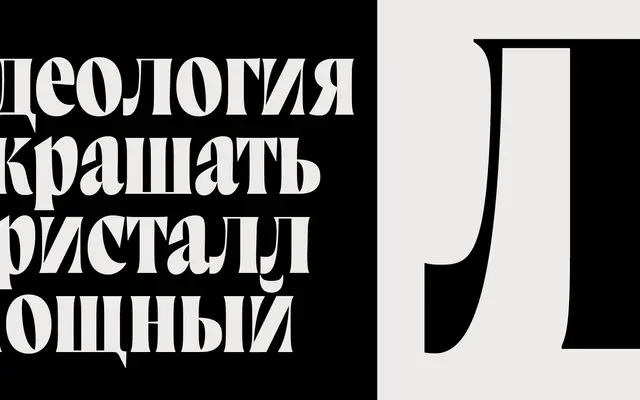
Marcovaldo
Zetafonts · Andrea Tartarelli · 2021
A condensed wedge serif in seven weights, drawn by Andrea Tartarelli as an extension of the Calvino family and shaped by the Elzevir and DeVinne traditions.
Developed as part of Zetafonts' Calvino typographic world, Marcovaldo draws on the high-contrast condensed rhythm of Elzevir and DeVinne printing types. Lighter weights carry tight spacing that evokes vintage editorial setting, while bolder weights open up for a more relaxed texture suited to headlines and book covers. The family includes a variable Roman weight axis and covers 200 languages across 420 glyphs.
A condensed high-contrast wedge serif with roots in the Elzevir and DeVinne traditions, optimised for display use. The pronounced contrast and wedge-shaped serifs place it firmly within the Latin display serif category.